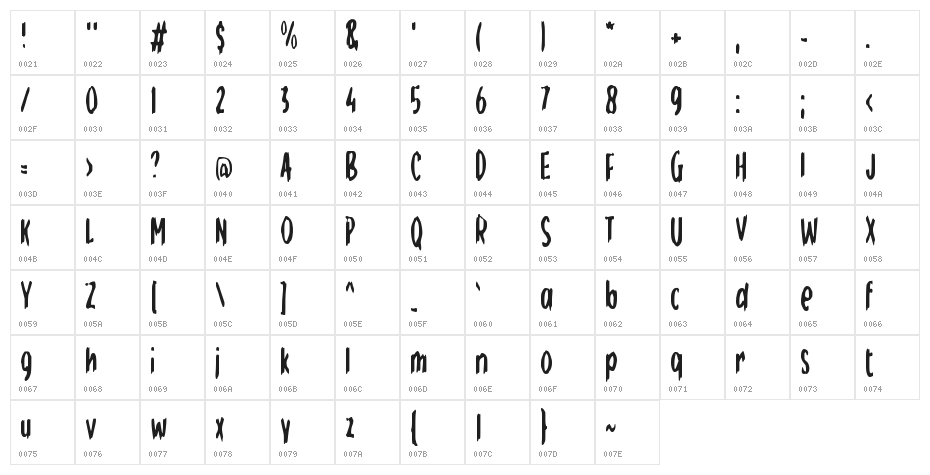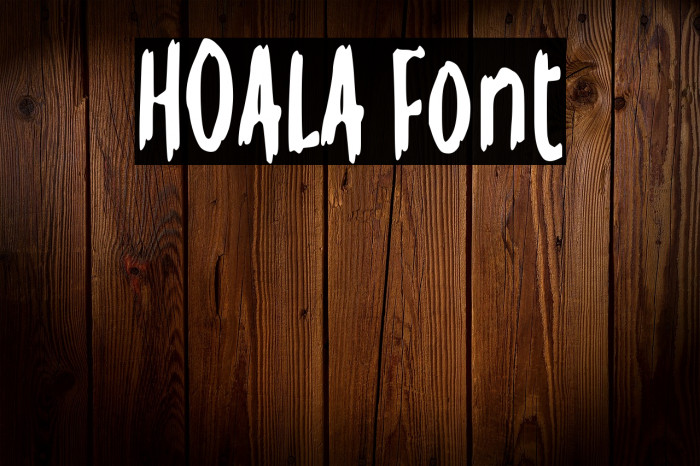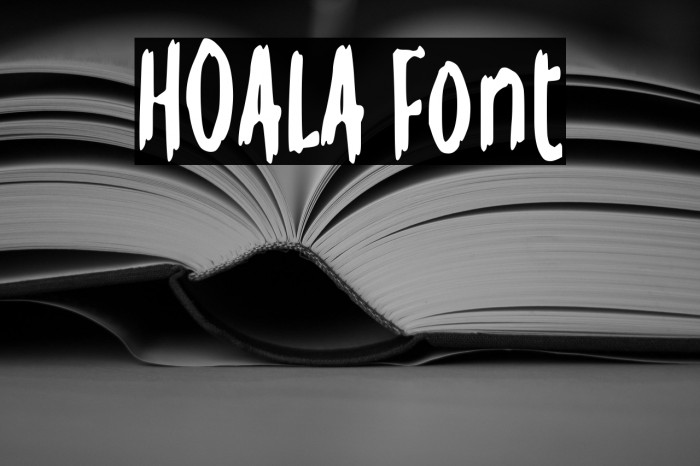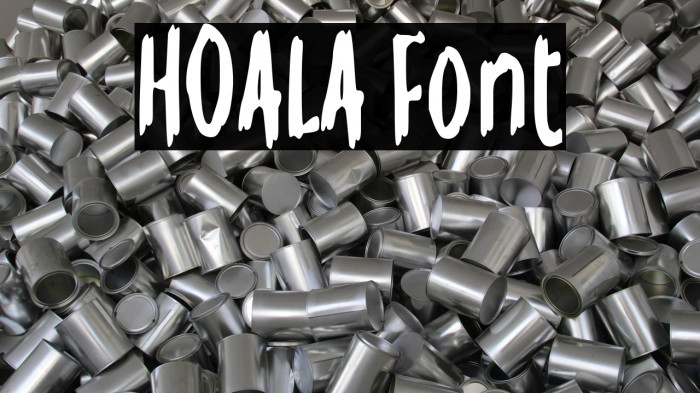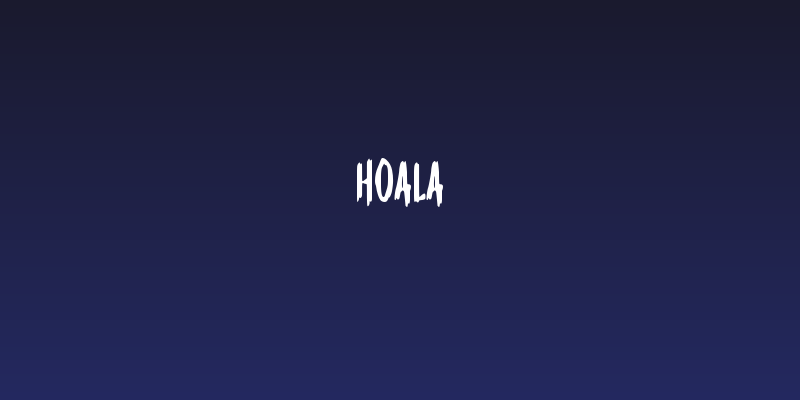
HOALA Font
HOALA Description
This font features a bold, hand-drawn style with a playful and energetic appearance. The characters are slightly irregular, giving it a casual and informal feel. The strokes are thick and uneven, adding to its dynamic and lively character. The uppercase and lowercase letters maintain a consistent style, with rounded edges and a slightly condensed form. The numbers and special characters follow the same aesthetic, ensuring a cohesive look across all elements. This font is ideal for projects that require a personal touch or a creative flair.
| Proposed Projects | Ideal for greeting cards, posters, children's books, and creative branding projects. |